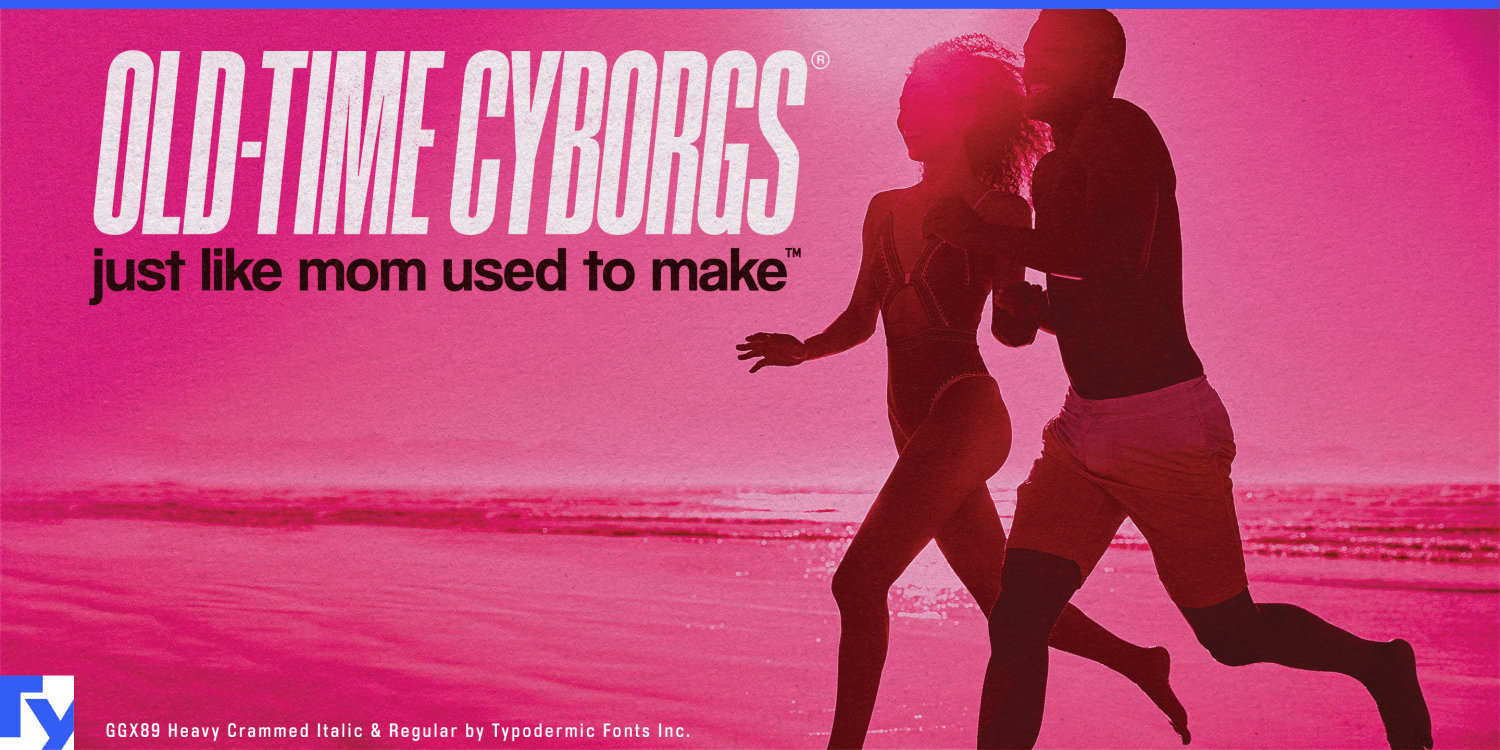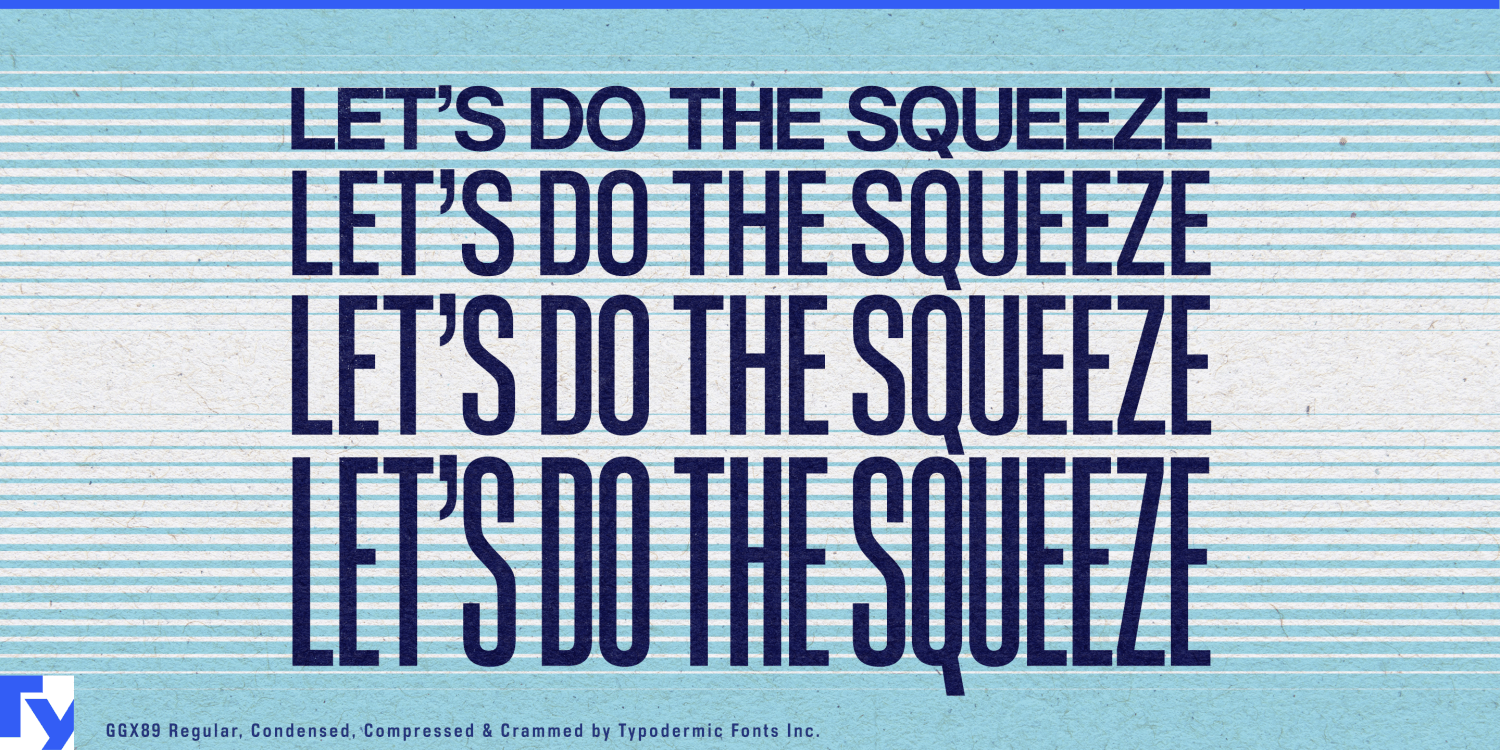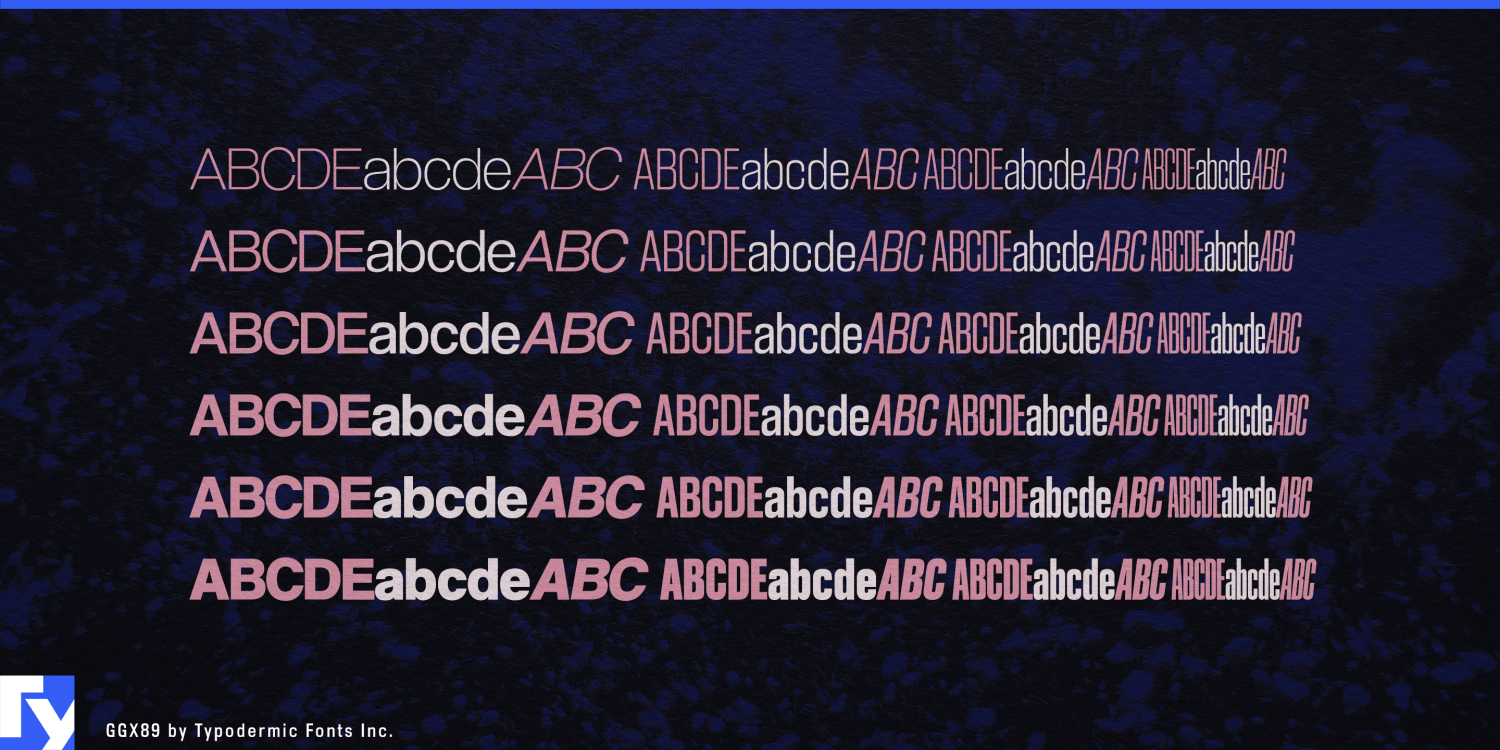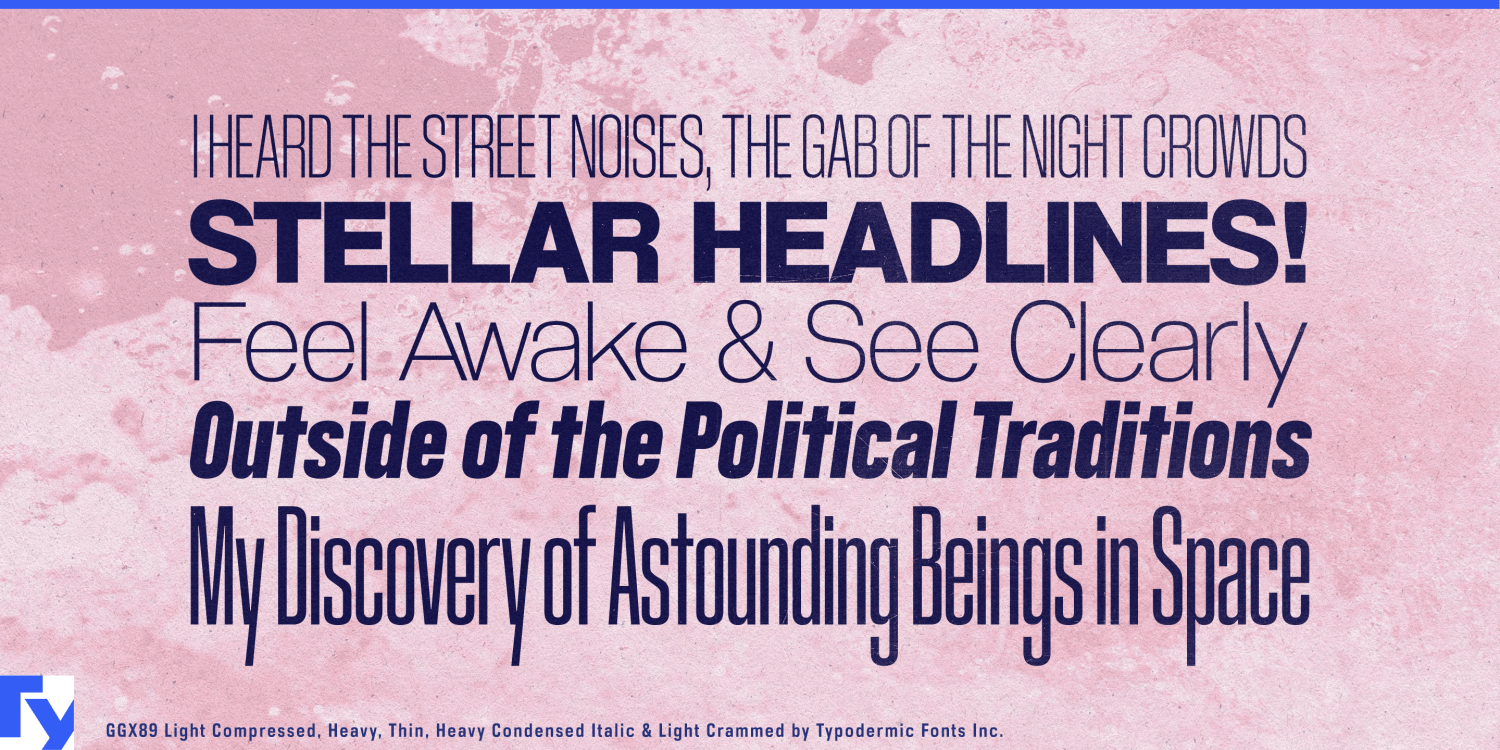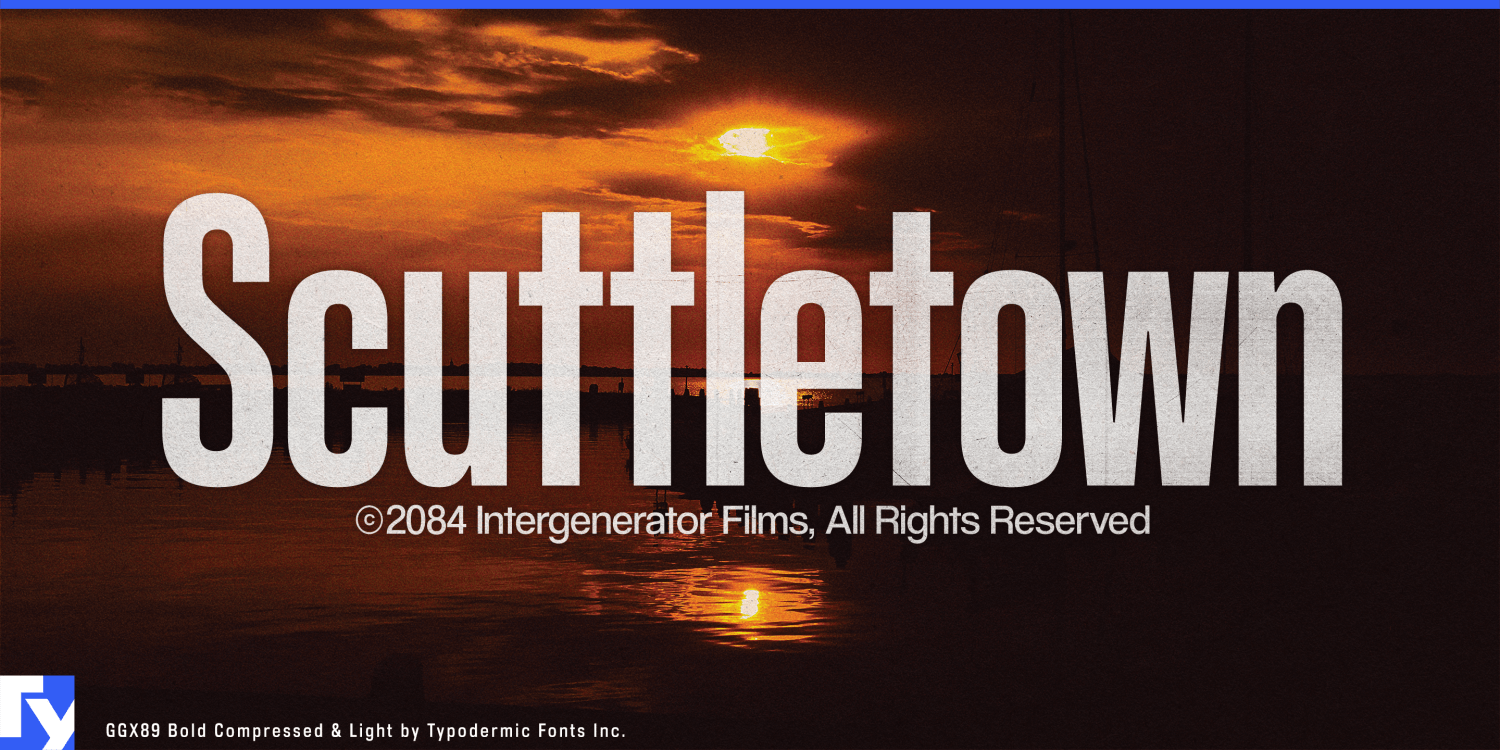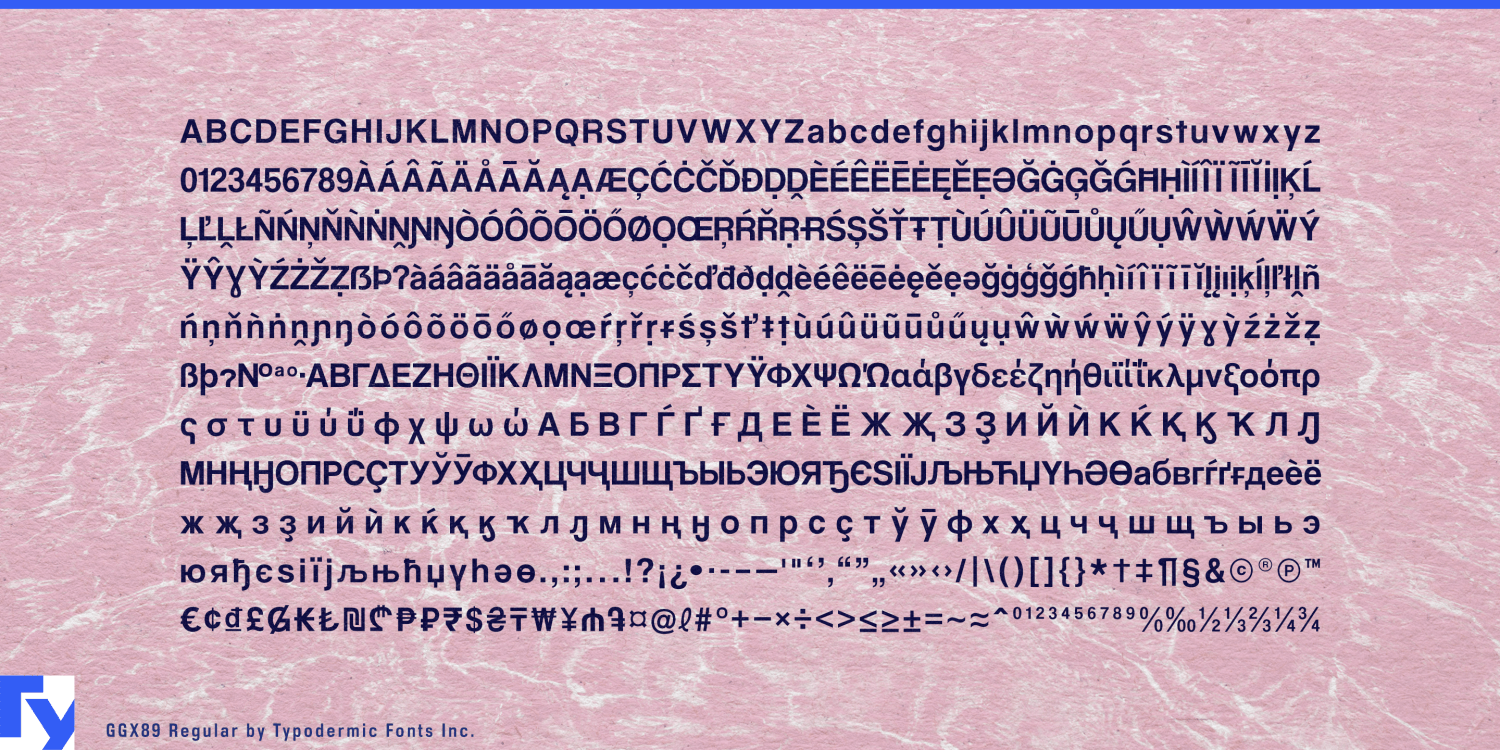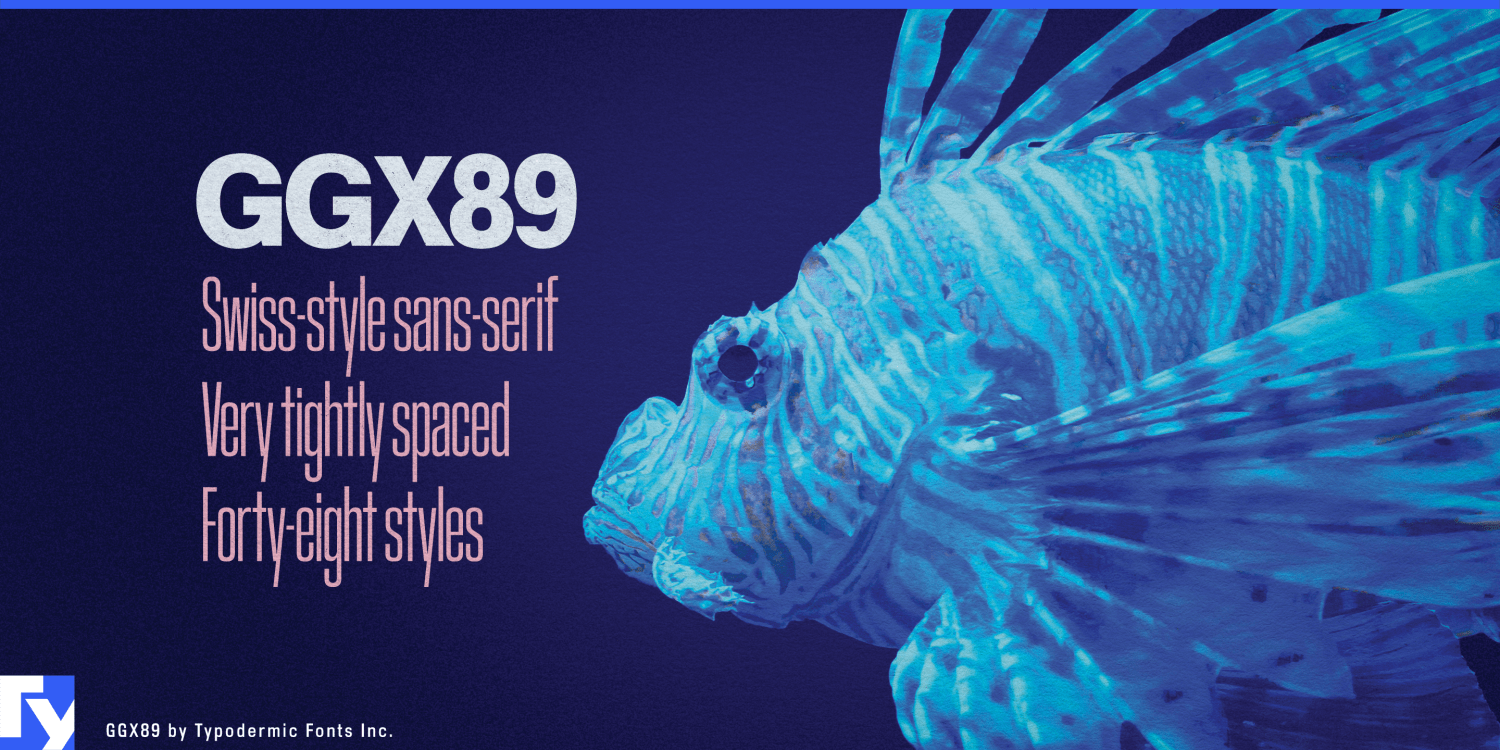
Step into the world of refined typography with GGX89, a display typeface that distills the essence of Swiss design into its purest form. This isn’t just another sans-serif font—it’s a masterclass in minimalist elegance, crafted to command…